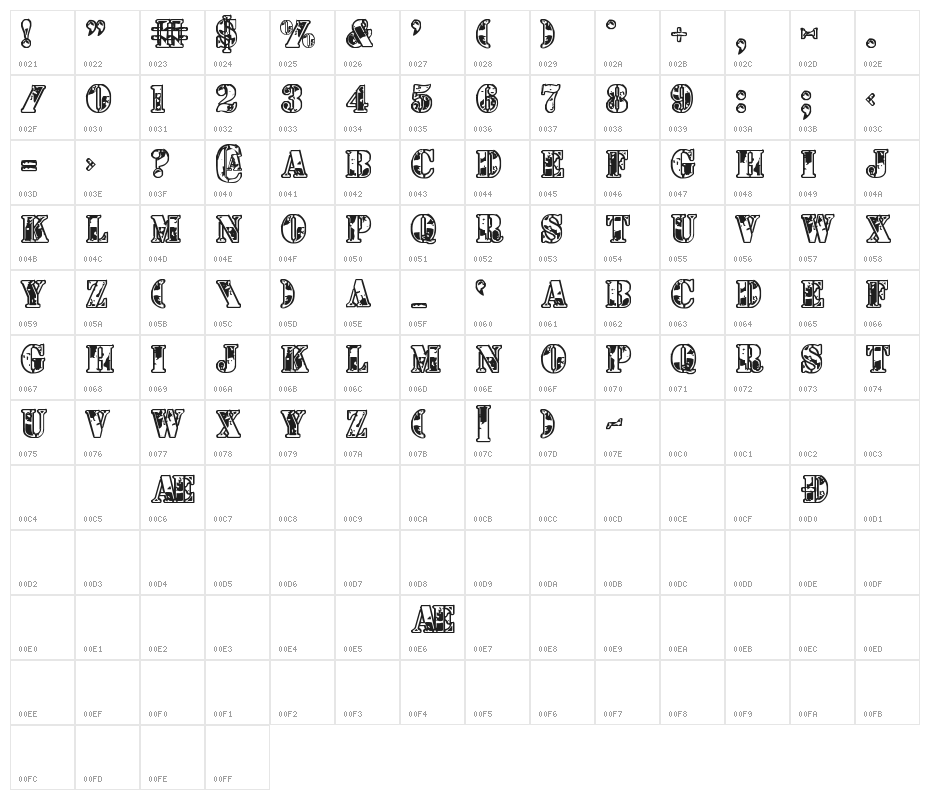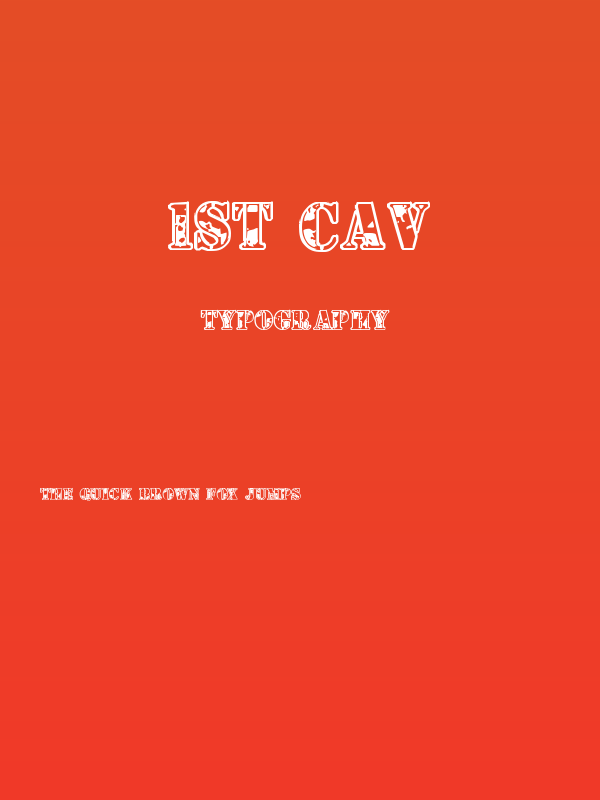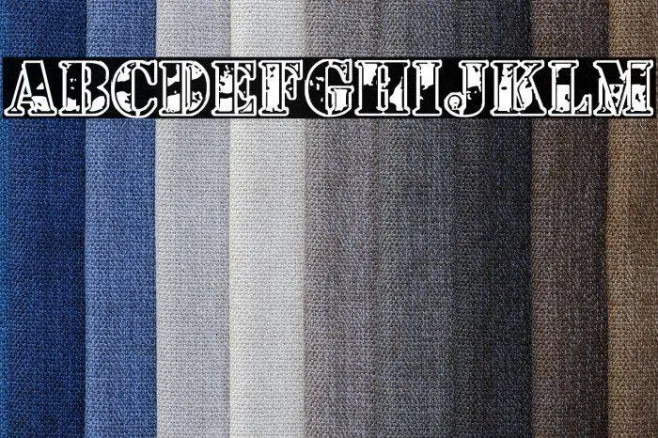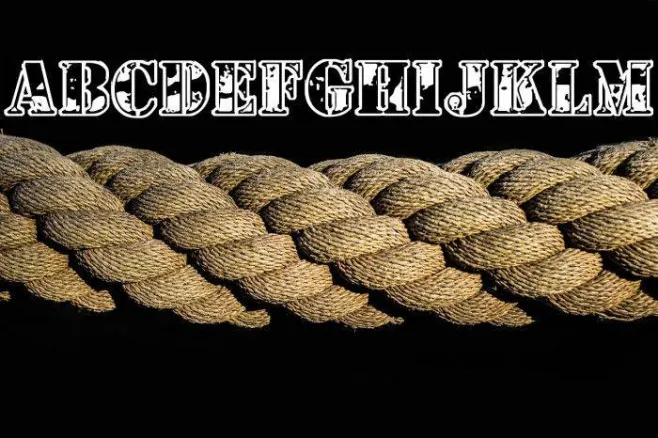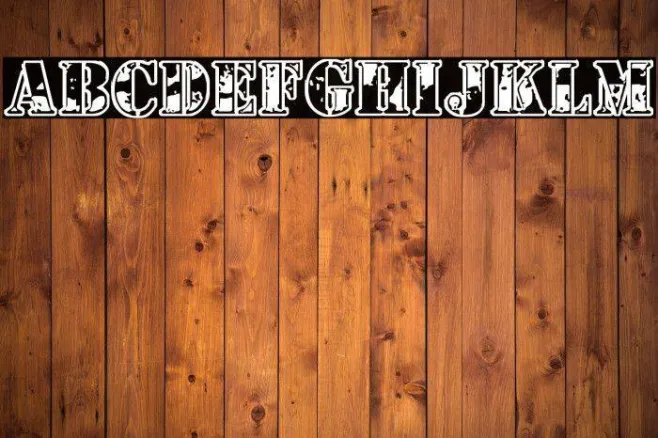
1st Cav Font
1st Cav Description
This font features a bold, distressed style with a vintage military aesthetic. The characters are heavily textured, giving them a rugged and worn appearance, reminiscent of stenciled letters on military equipment. The bold outlines and inner distressing create a strong visual impact, making it ideal for designs that require a tough and gritty look. The uppercase and lowercase letters maintain consistent styling, while numerals and special characters follow the same distressed theme, ensuring a cohesive appearance across all text elements.